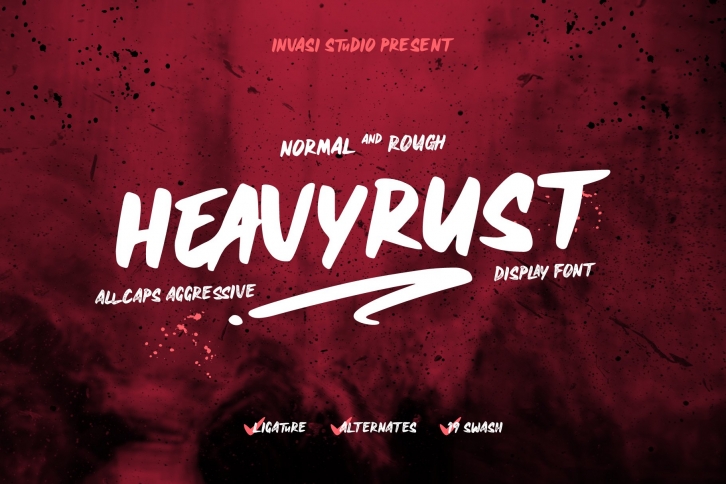
Heavyrust | Display Font Download
Heavyrust is a trendy and unique font with an authentic style. It was designed by Invasi Studio and it's a great choice for creative people who need such a font. It was released on November 9, 2020 and the file size is 15.55 MB. Heavyrust will add an organic vibe to any design idea!